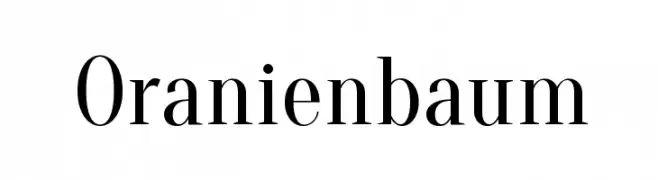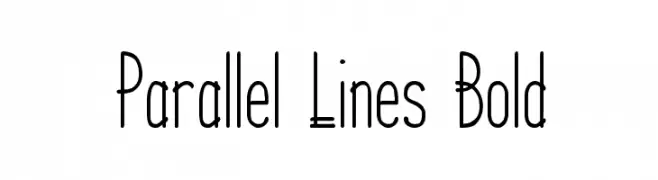
A modern, thin, and geometric sans-serif font with clean lines.
A classic serif font with elegant strokes and moderate contrast.
A bold, geometric font with strong, angular lines and a modern aesthetic.
A bold, rounded font with smooth curves and a modern, friendly style.
A bold, modern sans-serif font with a geometric structure.
A modern, dotted font with a digital and tech-inspired design.
A bold, slanted font with a modern and dynamic style.
A bold, hand-drawn font with a textured, block-like appearance.